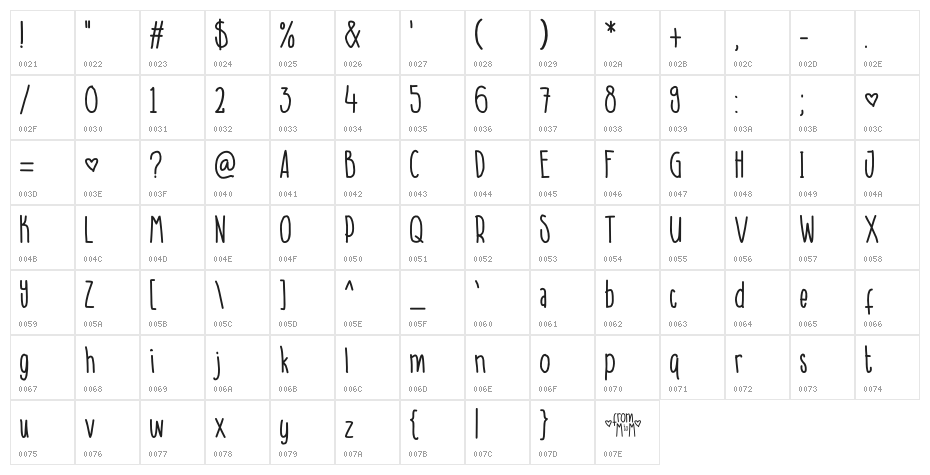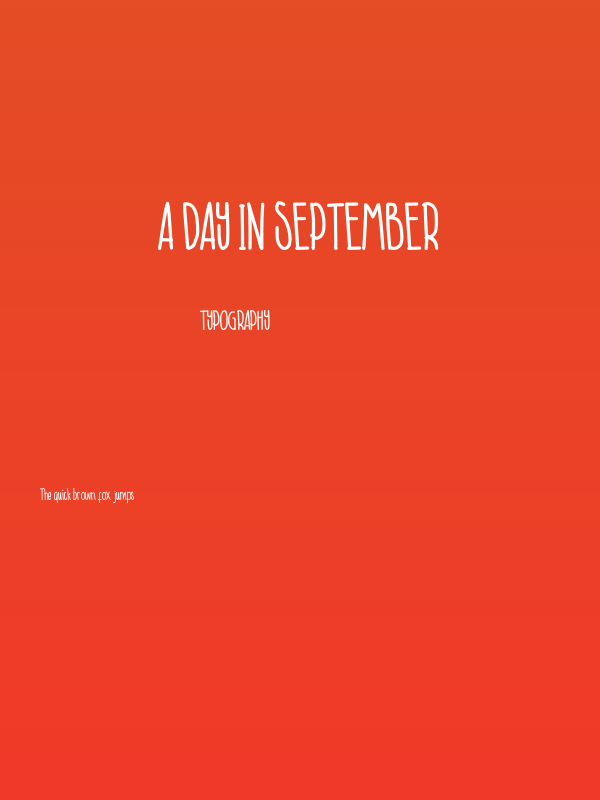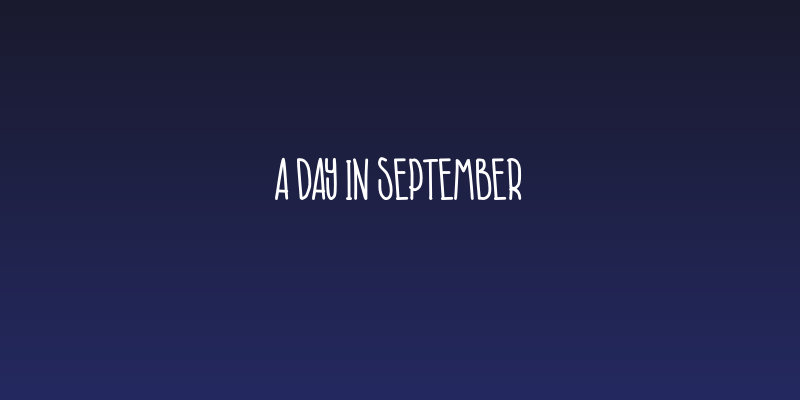
A Day in September Font
A Day in September Description
This font features a playful and casual handwritten style, characterized by its tall, narrow letters with a slight slant. The strokes are consistent in width, giving it a uniform appearance. The uppercase and lowercase letters maintain a cohesive look, with rounded edges and a friendly demeanor. Numbers and special characters follow the same style, ensuring a harmonious overall design. This font exudes a sense of approachability and creativity, making it suitable for projects that require a personal touch.
| Proposed Projects | Ideal for greeting cards, children's books, casual branding, and social media graphics. |